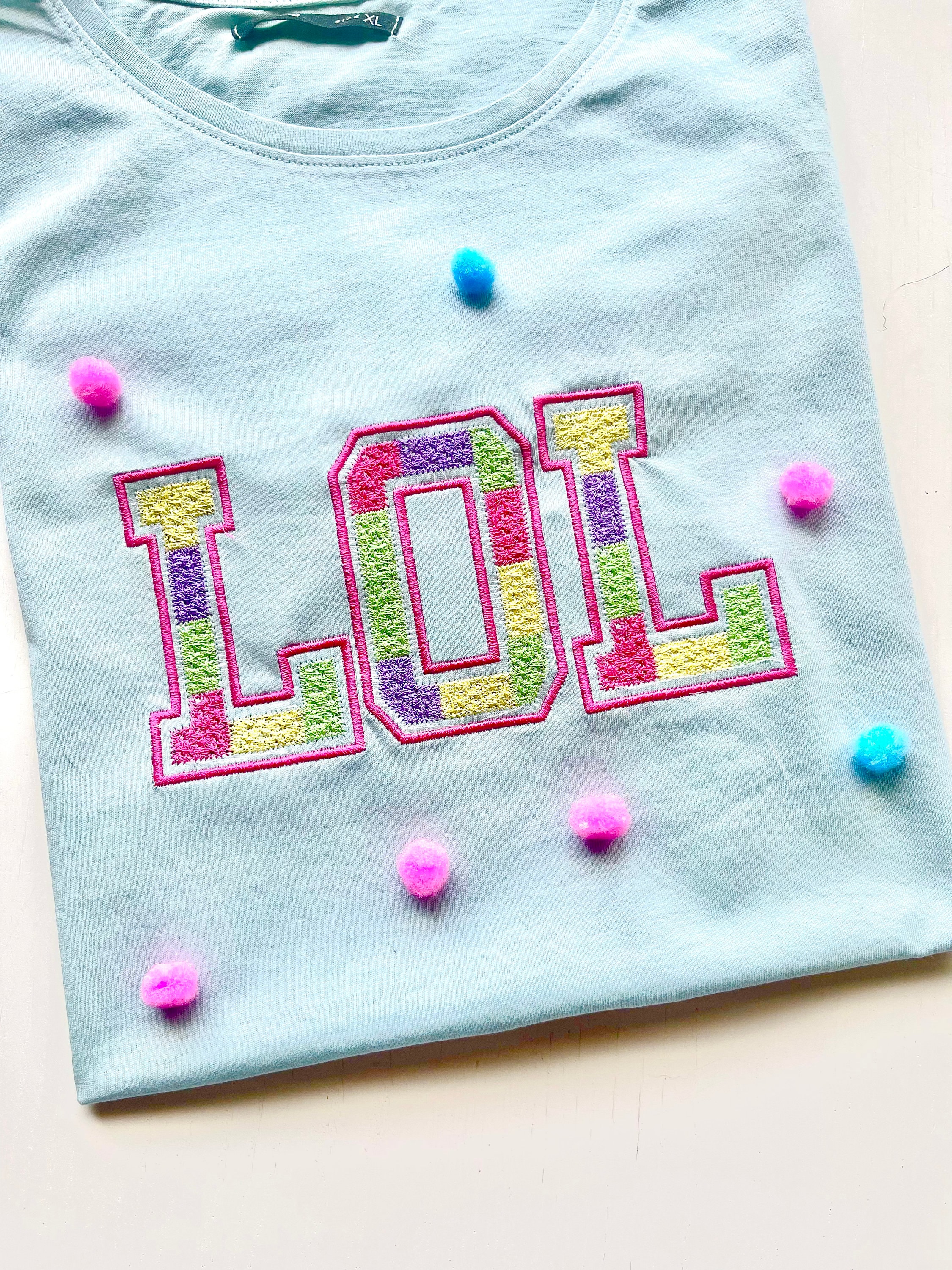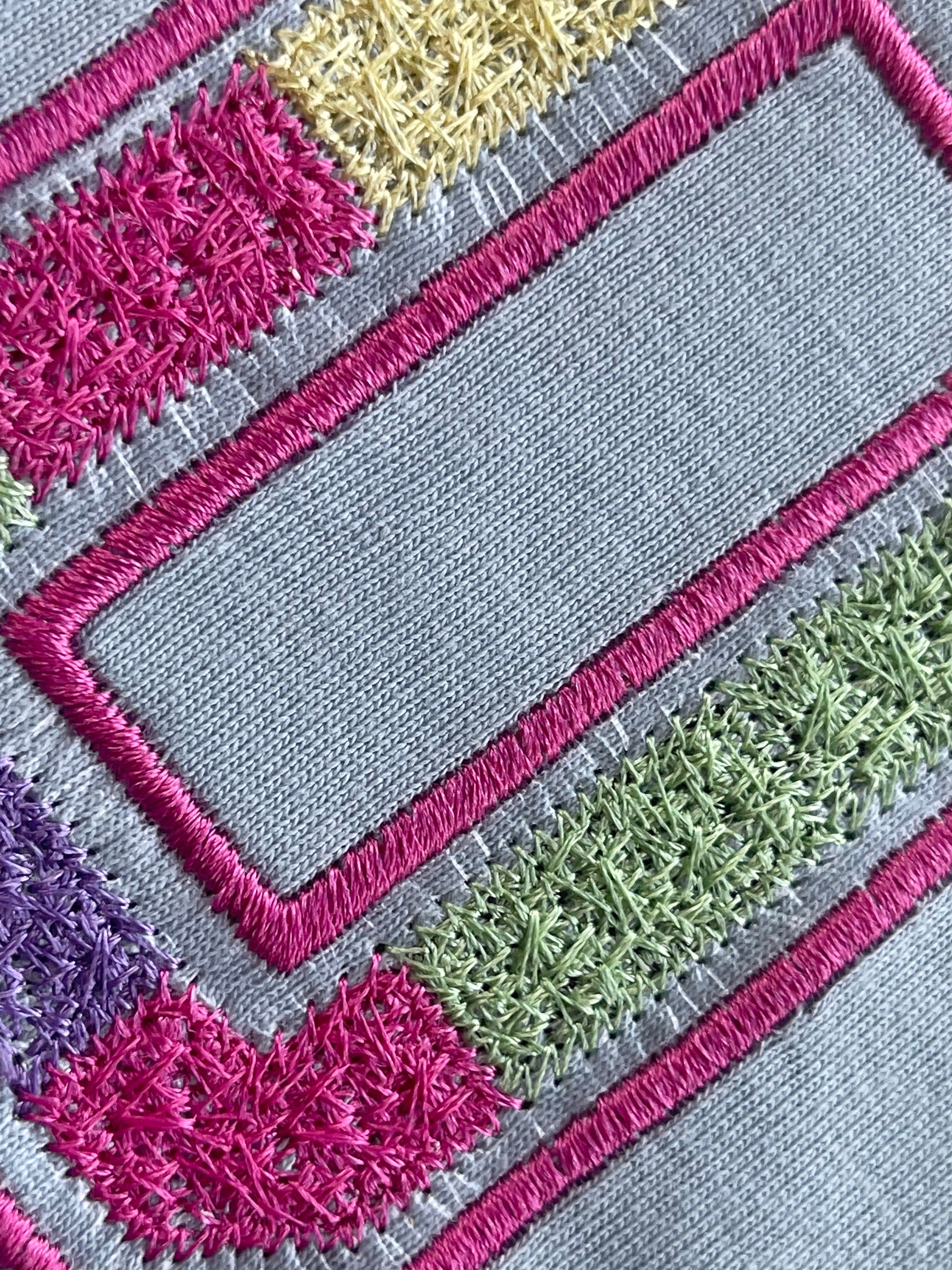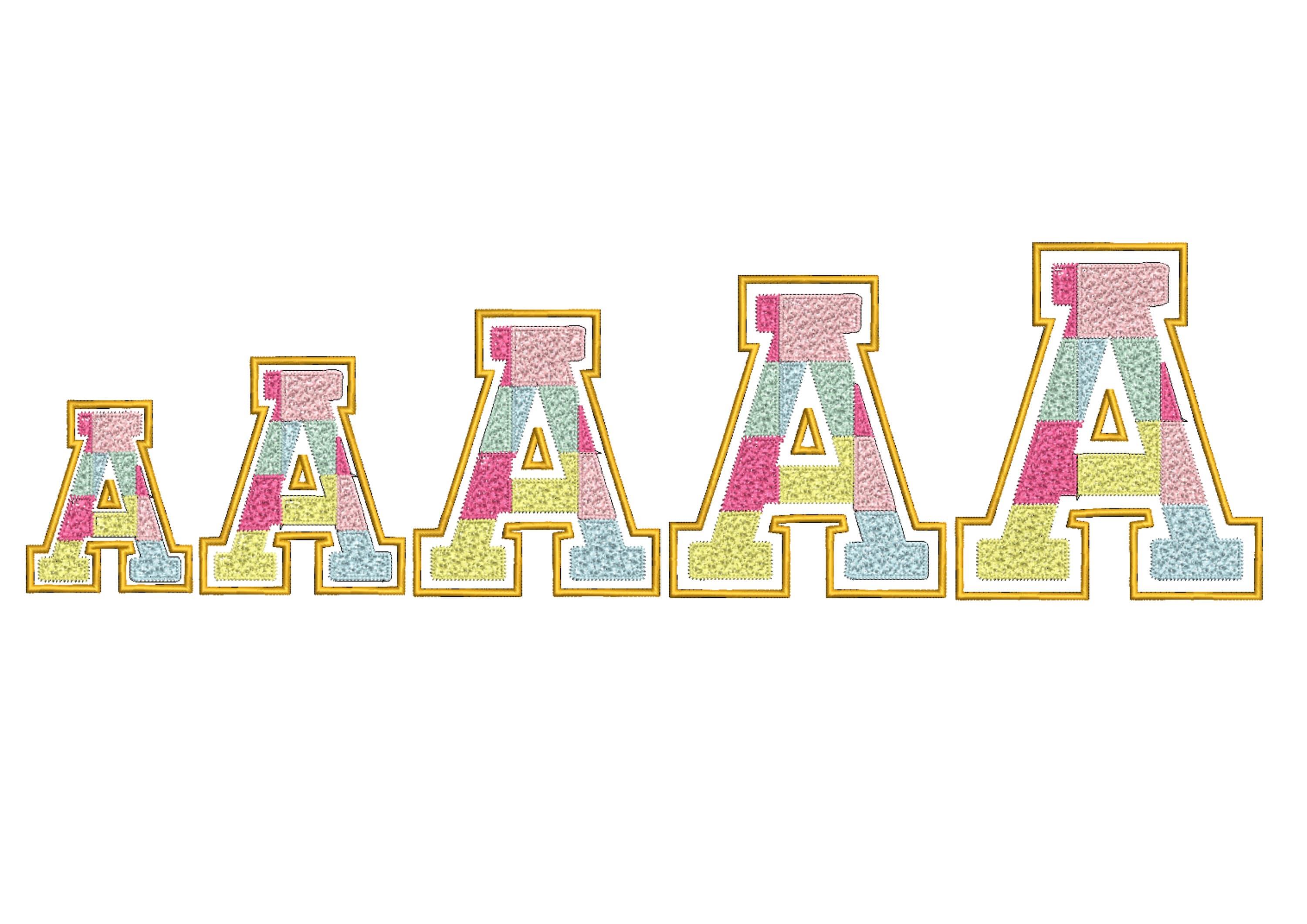
Faux Chenille Patch alphabet Font varsity handmade Sport School Team Players alphabet letters machine embroidery designs assorted sizes
Faux Chenille Patch alphabet has uppercase letters in assorted heights. It looks like chenille, load, and stitch. Please, see the enclosed photos.